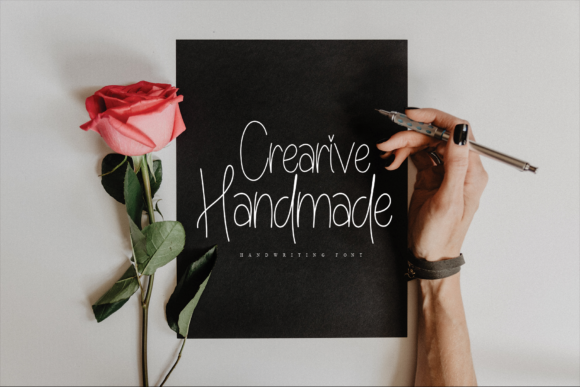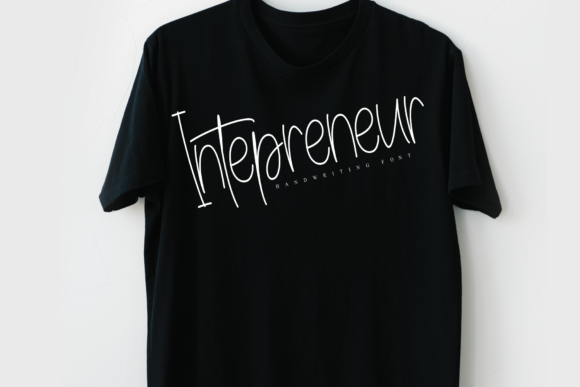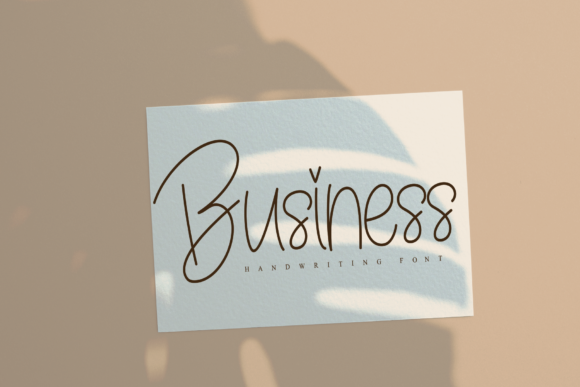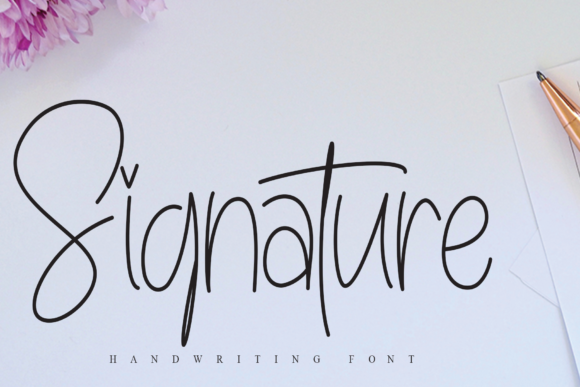
Introducing Allentown Font: Elevate Your Designs with Elegance and Sophistication
In the world of typography, few fonts manage to capture the essence of elegance and sophistication as beautifully as the Allentown font. This stylish and incredibly elegant script font has taken the design community by storm, offering a versatile and refined aesthetic that can elevate any project to new heights. Whether you’re working on wedding invitations, thank you cards, quotes, greeting cards, logos, business cards, or any other design that requires a touch of handwritten elegance, Allentown is the perfect choice.
The Charm of Allentown Font
Allentown font boasts a unique charm that sets it apart from other script fonts. Its flowing lines, delicate curves, and precise craftsmanship come together to create a visually stunning effect that exudes luxury and refinement. The font’s elegant appearance makes it an ideal choice for designers and crafters looking to add a touch of sophistication to their work.
One of the standout features of the Allentown font is its versatility. This font can be used across a wide range of design projects, from formal events like weddings and galas to more casual applications such as branding and advertising. Its adaptability makes it a valuable addition to any designer’s toolkit, allowing for endless possibilities and creative freedom.
Wedding Invitations and Stationery
Allentown font shines when used in wedding invitations and stationery. Its elegant and refined appearance sets the tone for a sophisticated and memorable event. The font’s beautiful script style adds a touch of romance and whimsy, making it perfect for wedding invitations, save-the-date cards, and thank you notes.
Branding and Logos
For businesses looking to establish a strong brand identity, Allentown font offers a unique opportunity to create a lasting impression. Its elegant and sophisticated appearance makes it an excellent choice for logos, business cards, and letterheads. The font’s versatility allows it to be used across various industries, from luxury brands to creative agencies.
Digital and Print Media
Allentown font is not limited to print media; it’s also perfect for digital applications. Use it in social media graphics, blog posts, and website headers to add a touch of elegance and sophistication to your online presence. The font’s readability and clarity make it an excellent choice for body text, while its decorative style is perfect for headings and titles.
Why Choose Allentown Font?
With so many fonts available, why choose Allentown? Here are a few reasons why designers and crafters are falling in love with this elegant script font:
- Elegance and Sophistication: Allentown font exudes luxury and refinement, making it perfect for high-end designs.
- Versatility: Use it across various design projects, from wedding invitations to branding and advertising.
- Readability: The font’s clear and precise craftsmanship ensures excellent readability, even at small sizes.
- Unique Style: Allentown font has a distinctive appearance that sets it apart from other script fonts.
Tips for Using Allentown Font
To get the most out of Allentown font, here are a few tips to keep in mind:
- Pair it with a sans-serif font: Combine Allentown font with a clean sans-serif font for a striking contrast.
- Experiment with colors: Try pairing the font with different colors to create a unique and eye-catching effect.
- Use it sparingly: While Allentown font is beautiful, it’s best used sparingly to avoid overwhelming the design.
In conclusion, Allentown font is a stylish and elegant script font that can elevate any design project to new heights. Its versatility, readability, and unique style make it an excellent choice for designers and crafters looking to add a touch of sophistication to their work. Whether you’re working on wedding invitations, branding, or digital media, Allentown font is sure to impress.